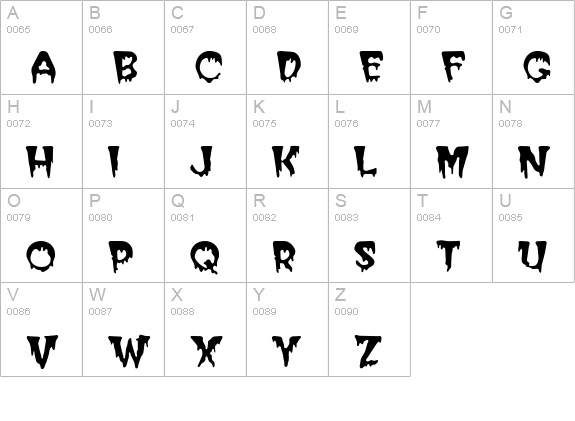
Bugaboo SSi Font Details
Bugaboo SSi font is a charming and whimsical typeface that exudes a playful and friendly vibe. With its quirky shapes and unique design, this font is perfect for adding a touch of fun to your projects. Whether you're creating invitations, posters, or greeting cards, Bugaboo SSi will bring a sense of lightheartedness to your designs. The best part? Bugaboo SSi font is available for free download at FontsMarket.com. You can easily access this delightful font and start using it in your projects without any cost. Don't miss out on the opportunity to add a touch of whimsy to your designs with Bugaboo SSi font!